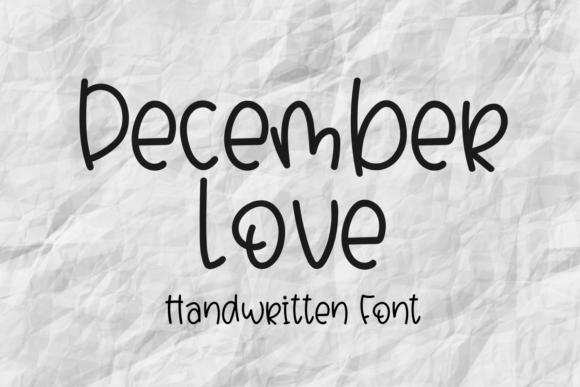
Behold the December Love Font, a captivating script font that dances across your designs with an enchanting allure. Let your imagination soar and immerse yourself in the enchanting world of handwritten artistry, where every letter unfolds a tale of love and heartfelt emotions. Crafted by the visionary Al Ghul, this font is a symphony of artistic expression, designed to bring a touch of magic to your creative endeavors.
Meet December Love, a font that emanates warmth and charm, caressing your senses with its delicate curves and playful flourishes. Indulge in the whimsical nature of this font, where each character dances with grace and finesse, leaving a trail of delight in its wake. Designed with the utmost attention to detail, December Love is a testament to the transformative power of typography, capable of breathing life into your designs.
Embrace the versatility of December Love, a font that seamlessly adapts to a myriad of creative projects. Whether you're crafting a heartfelt invitation, designing a captivating poster, or developing a brand identity that exudes warmth and personality, December Love rises to the occasion, adding a touch of elegance and charm that captivates the eye. Its wide range of applications makes it a must-have in the toolkit of any designer seeking to make a lasting impression.
Embark on a journey of creative exploration with December Love, a font that fuels your imagination and unleashes your inner artist. Let your designs blossom with a touch of whimsy and heartfelt charm, as you weave words into captivating visual masterpieces. Surrender to the allure of this captivating font, and watch as your creations come alive with a new sense of energy and vibrancy.